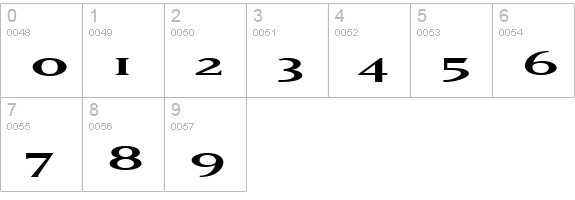
MatrixWideOldstyle Regular Font Details
MatrixWideOldstyle Regular is the standard, neutral variant in the MatrixWideOldstyle typeface family \xE2\x80\x94 well suited to general body text, paragraphs, and standard typographic work.
MatrixWideOldstyle Regular font is a classic and elegant typeface that exudes a sense of traditional sophistication. Its timeless design makes it a versatile choice for various design projects, from print materials to digital media. The font features clean lines and a balanced weight distribution, making it easy to read and visually appealing. One of the standout features of MatrixWideOldstyle Regular font is that it is available for free download at FontsMarket.com. This means that designers and creatives can easily access this high-quality font without any cost, making it a valuable addition to their font library. With its wide range of characters and glyphs, MatrixWideOldstyle Regular font is suitable for a wide variety of design applications, making it a must-have for any designer looking to elevate their work.